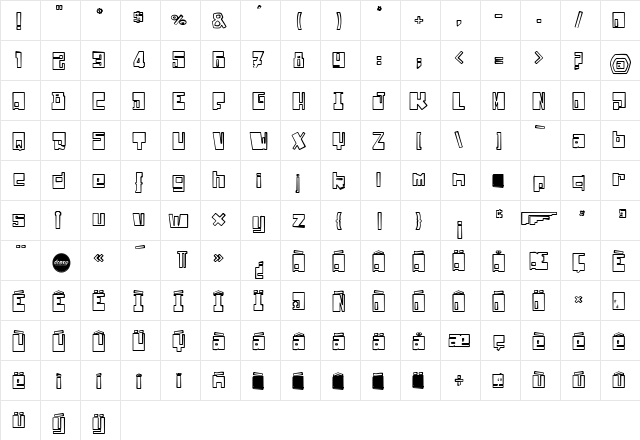
Drone Nation Regular
| Foundry | dcoxy Medina Gregory |
| Designer | dcoxy Medina Gregory |
Design Context for Drone Nation Typeface
Drone Nation is a composed and adaptable typeface that performs quietly and consistently across a wide range of design contexts.